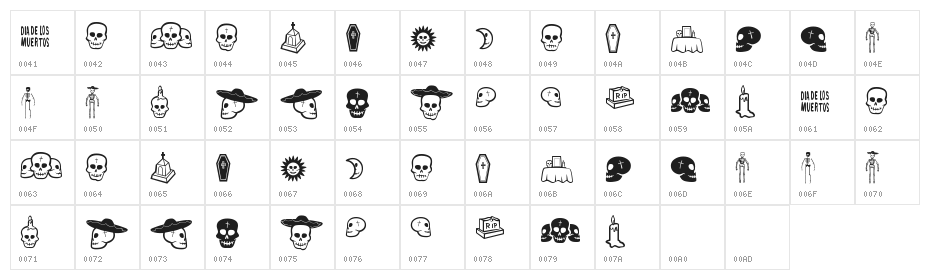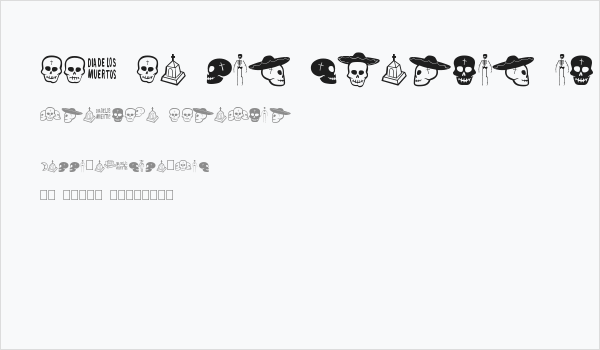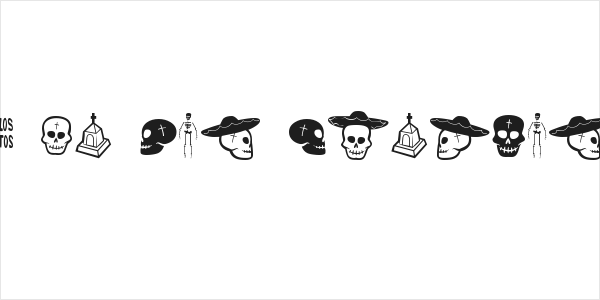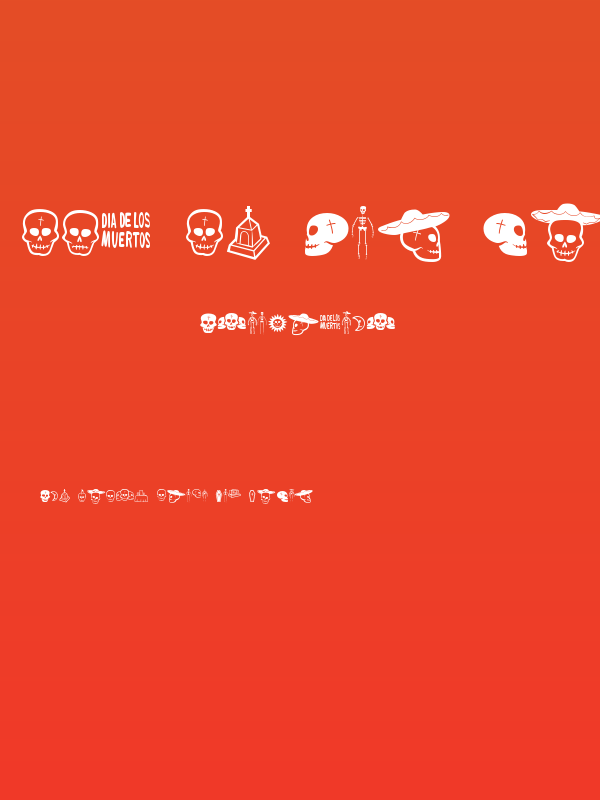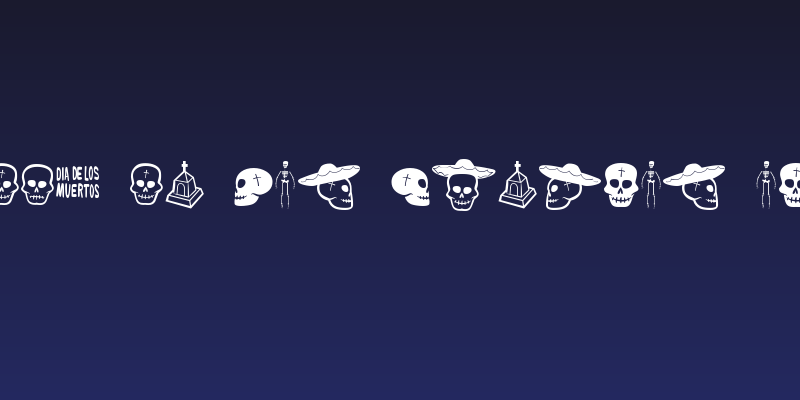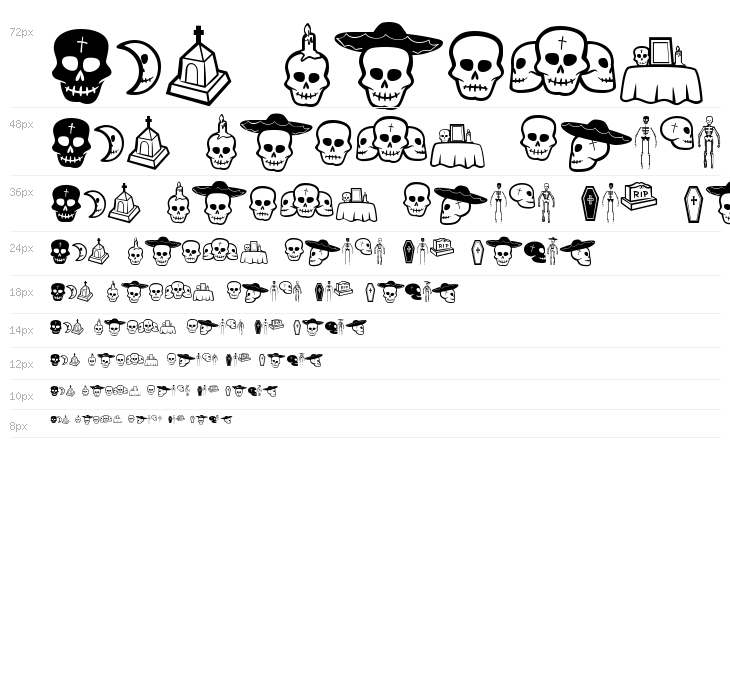
Dia De Los Muertos OT Font
Dia De Los Muertos OT Description
This is a decorative font inspired by the Dia de los Muertos celebration, featuring a series of detailed and thematic icons. The characters are replaced with various symbols such as skulls, skeletons, gravestones, and other motifs associated with the Mexican holiday. Each symbol is intricately designed, capturing the essence of the festival with a playful and artistic flair. The icons are bold and clear, making them suitable for decorative purposes. The font does not follow traditional letterforms but instead uses these unique symbols to convey its theme.
| Proposed Projects | Ideal for event posters, themed invitations, party decorations, and educational materials about Dia de los Muertos. |